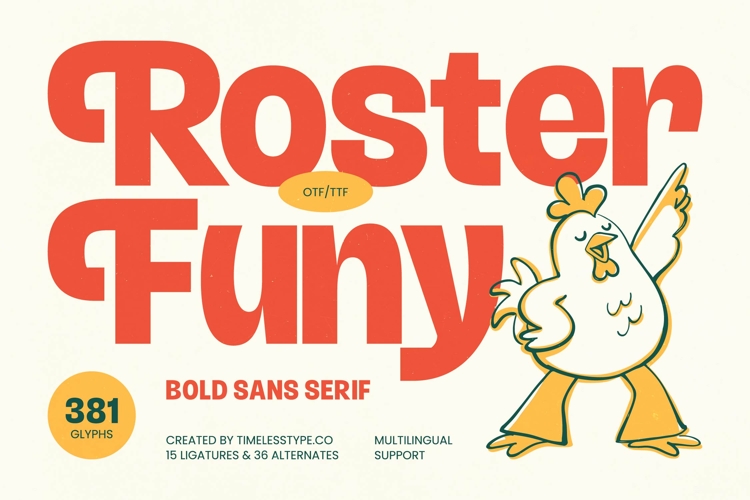
Roster Funy Bold Sans Serif
Roster Funy captures the essence of a sun-drenched afternoon, blending nostalgic charm with a bold, contemporary spirit that demands attention. It is the ultimate typographic companion for designers looking to inject a sense of joy and character into every project.
Drawing inspiration from 1970s diner menus and classic cartoon title cards, this typeface reflects a time when design was unafraid to be playful and expressive. The soft curves and heavy weights evoke a feeling of warmth and familiarity, reminiscent of retro food packaging and vibrant street signage.
This modern serif display alternative brings a unique luxury typography vibe to a traditionally casual genre, ensuring your work stands out with a high-end feel. Its chunky proportions provide a significant branding impact, making it a versatile editorial font that can handle a high-contrast serif look while maintaining modern legibility.